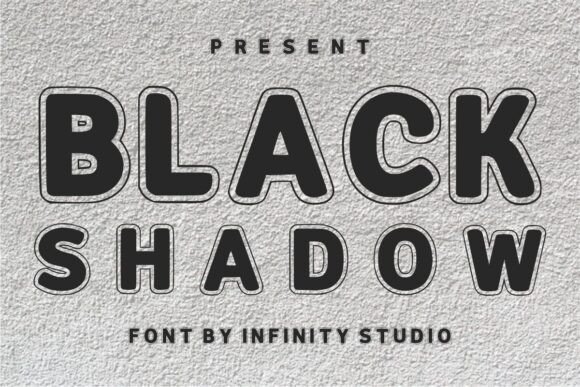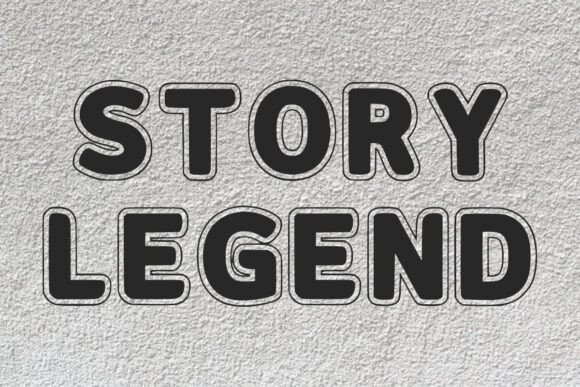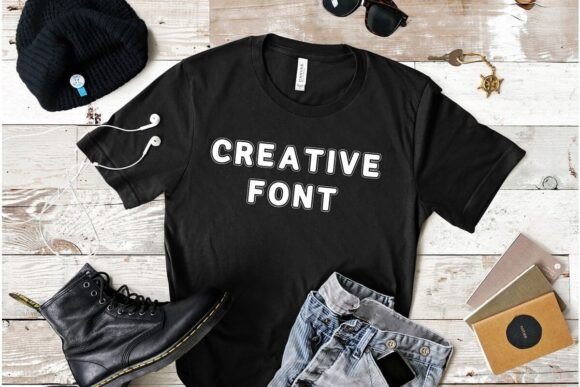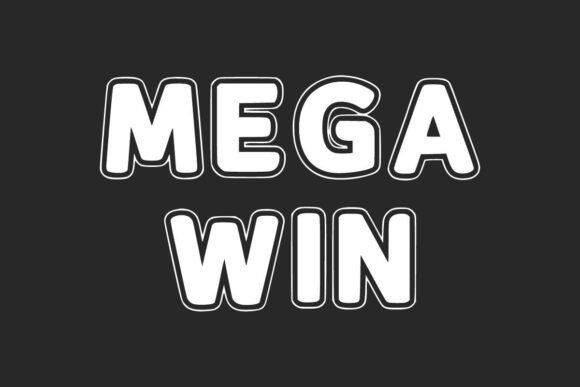
Black Shadow Font: A Bold Retro Display Font for Headlines & Posters
About the Black Shadow Font
The Black Shadow Font offers a perfect balance of form and function for your design needs. Black Shadow is a stunning retro-styled display font. Its classic & vintage feel will be a great addition to many projects.
It is perfect for headlines, sporting events, text effects, posters, logos, or monogrammed designs.
Black Shadow’s bold, retro styling excels in large-scale applications such as posters, headlines, and logos where its strong character can command attention. It’s ideal for projects evoking a vintage or nostalgic feel, particularly those related to sports, entertainment, or classic Americana. Avoid using it for body text or UI elements; its strong forms are unsuitable for extended reading.
Pairing Black Shadow effectively requires considering its assertive personality. A clean sans-serif like Montserrat or a geometric sans-serif like Futura would provide a crisp contrast, balancing its vintage flair with modern readability. For a more luxurious feel, a subtle serif like Garamond could work well, softening its boldness while maintaining visual sophistication.
The font’s overall personality is confident and assertive, lending itself to brands that wish to project a strong, retro-inspired image. Avoid using it for projects requiring subtlety or a delicate touch.
Black Shadow Font Usage Examples
Black Shadow Font Example